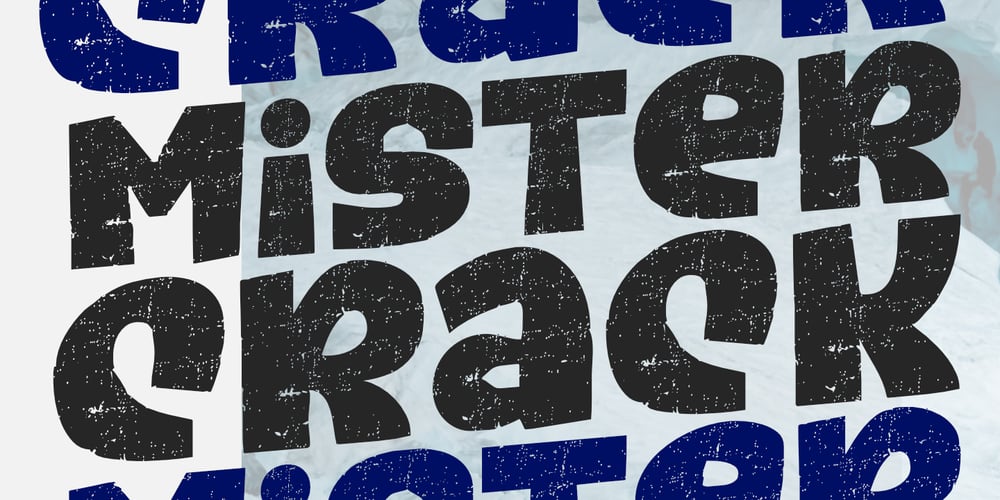
Mister Crack Font Family was designed by Nurul Hidayani and published by Olivetype. Mister Crack contains 1 styles and family package options. Say goodbye to boring typography and hello to an impactful visual experience! Mister Crack’s rough texture adds depth and dimension to your designs, making them stand out from the crowd. Whether you’re designing a vintage-inspired poster or crafting a powerful logo, this typeface injects charisma and attitude into every word.Mister Crack features : Standard Latin Numbers, symbols, and punctuations Multilingual Support. Fully accessible without additional design software Simple Installations Works on PC & Mac Thank You.